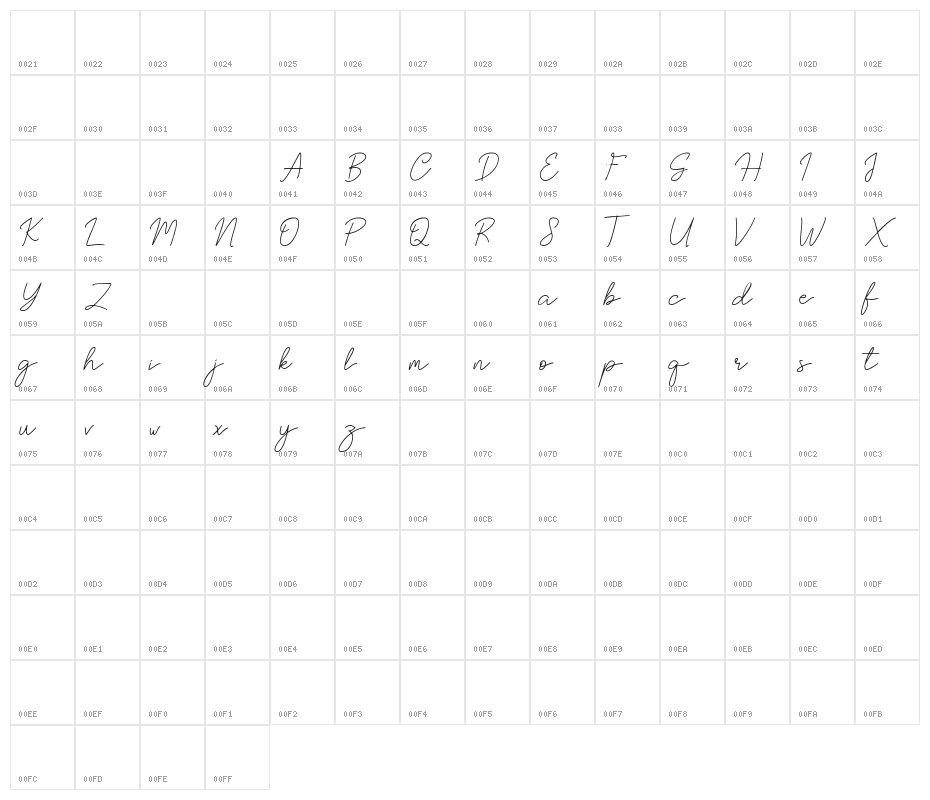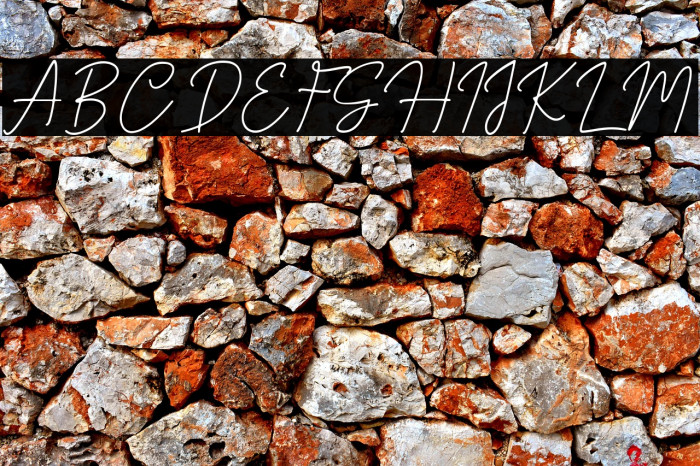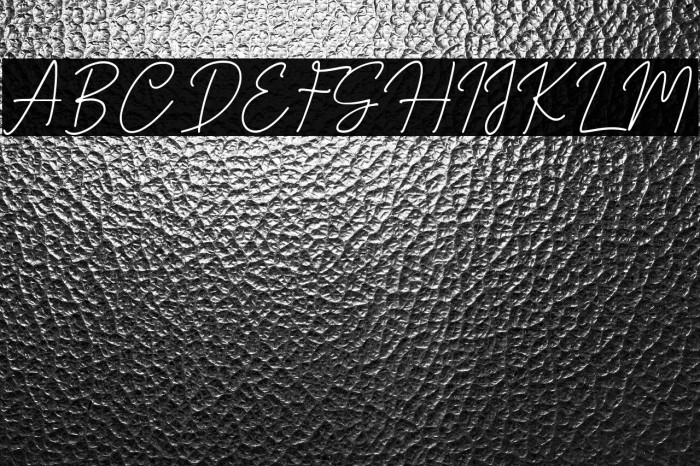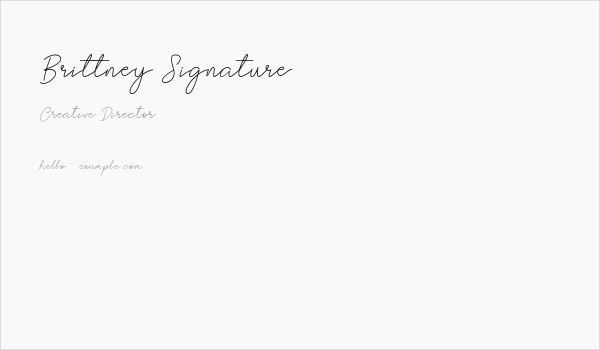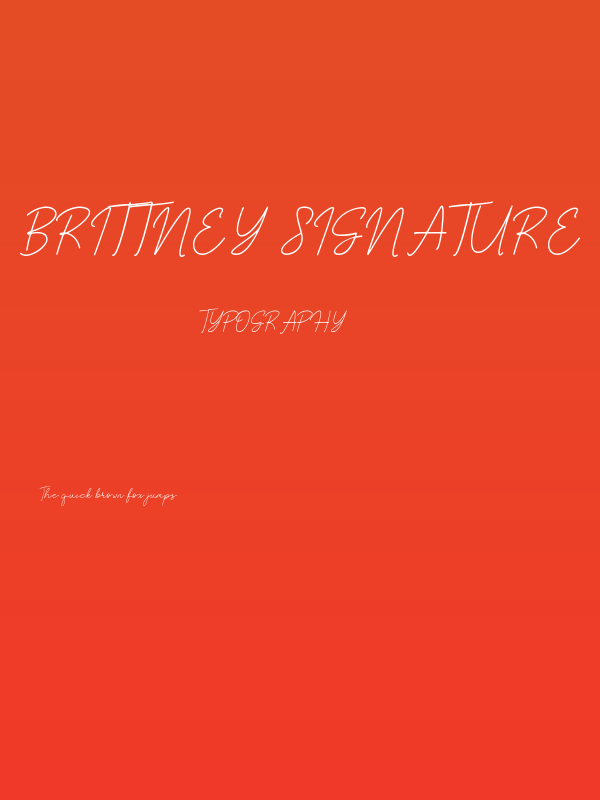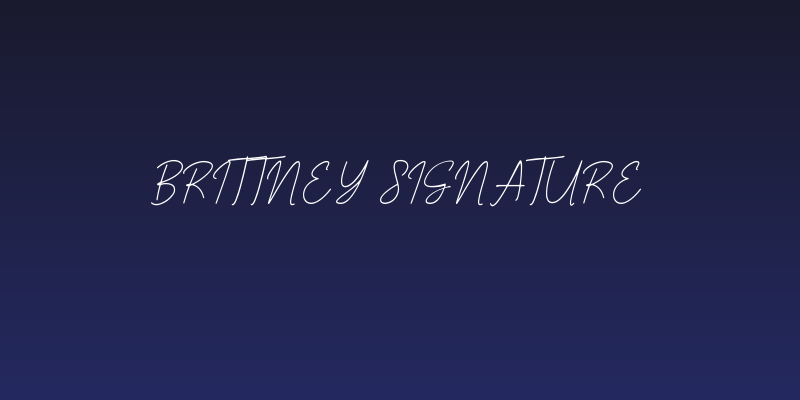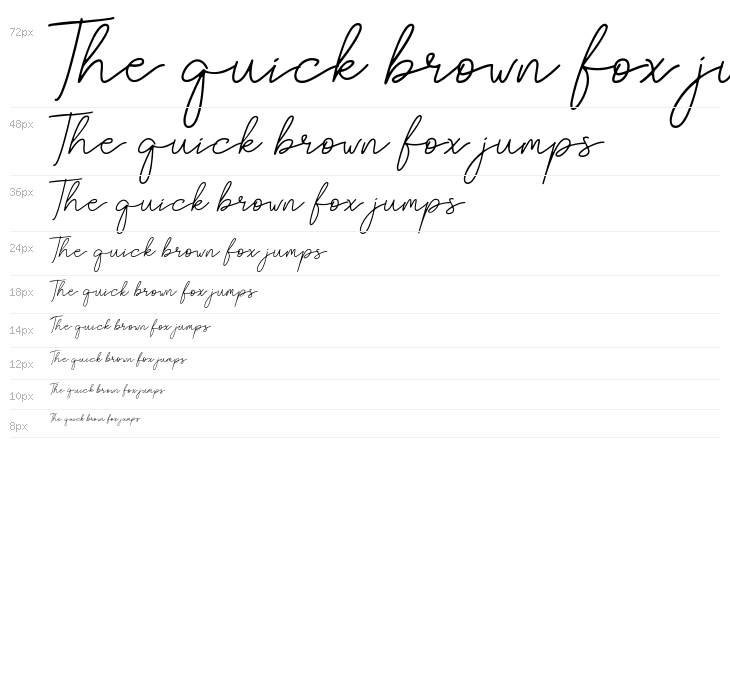
Brittney Signature Font
Brittney Signature Description
This font exudes a sophisticated and elegant handwritten style, characterized by its fluid and graceful letterforms. The uppercase letters maintain a consistent height, with gentle curves and loops that add a touch of refinement. The lowercase letters are seamlessly connected, enhancing the script's natural flow and making it ideal for conveying a personal touch. The overall appearance is both stylish and legible, suitable for a variety of design applications. The font's delicate strokes and balanced proportions make it versatile for both formal and informal contexts, adding a sense of charm and personality to any project.
| Overall Style | Elegant, Handwritten |
| Proposed Projects | Ideal for wedding invitations, personal branding, greeting cards, and elegant packaging designs. |